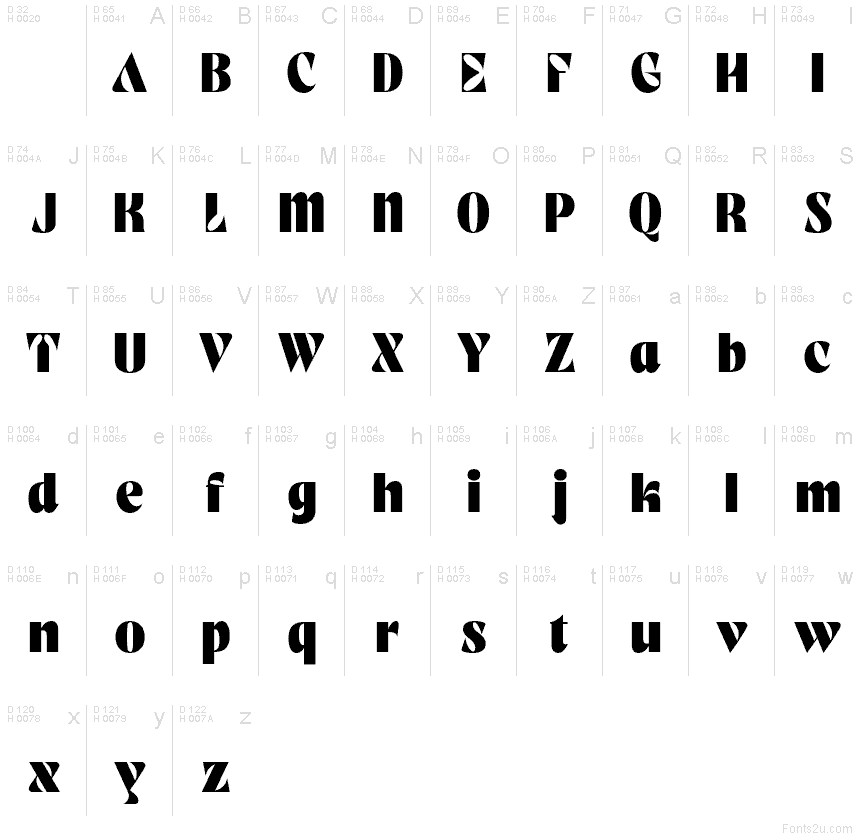
CS Aslan Regular Demo
CS Aslan font by Craft Supply Co. is a free bold vintage serif font. It stands out with sculpted, blade-like serifs and dramatic stroke contrast that carve crisp, inky shapes on the page. Tight rhythms and sharp triangular cuts give it a poster-ready swagger—think hand-cut wood type polished to a glossy sheen, yet still a little wild around the edges.
Using CS Aslan, headlines punch through with authority while keeping a refined, old-world charm. It shines on spirits labels, boutique packaging, editorial covers, theater posters, vintage logos, and event branding. This free font loves large sizes and tight tracking; pair it with a clean grotesk sans for body copy to let its chiseled forms take center stage.